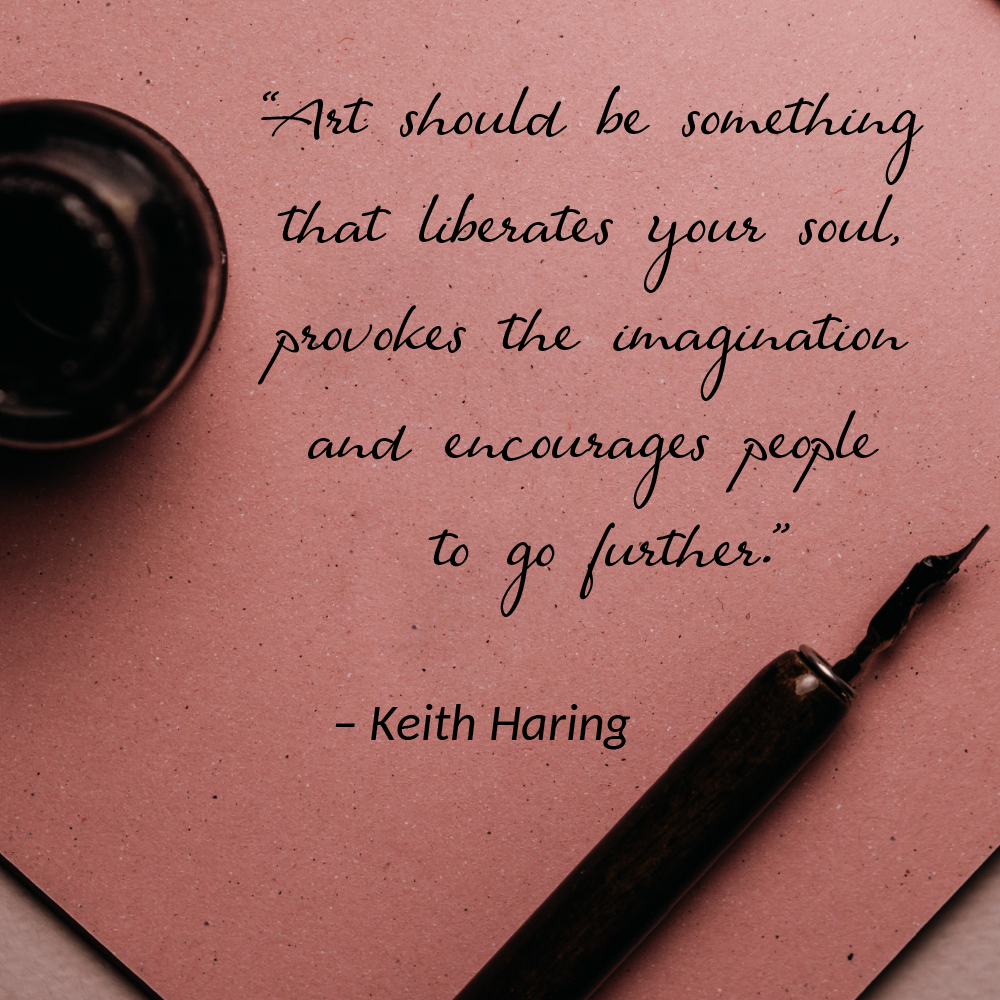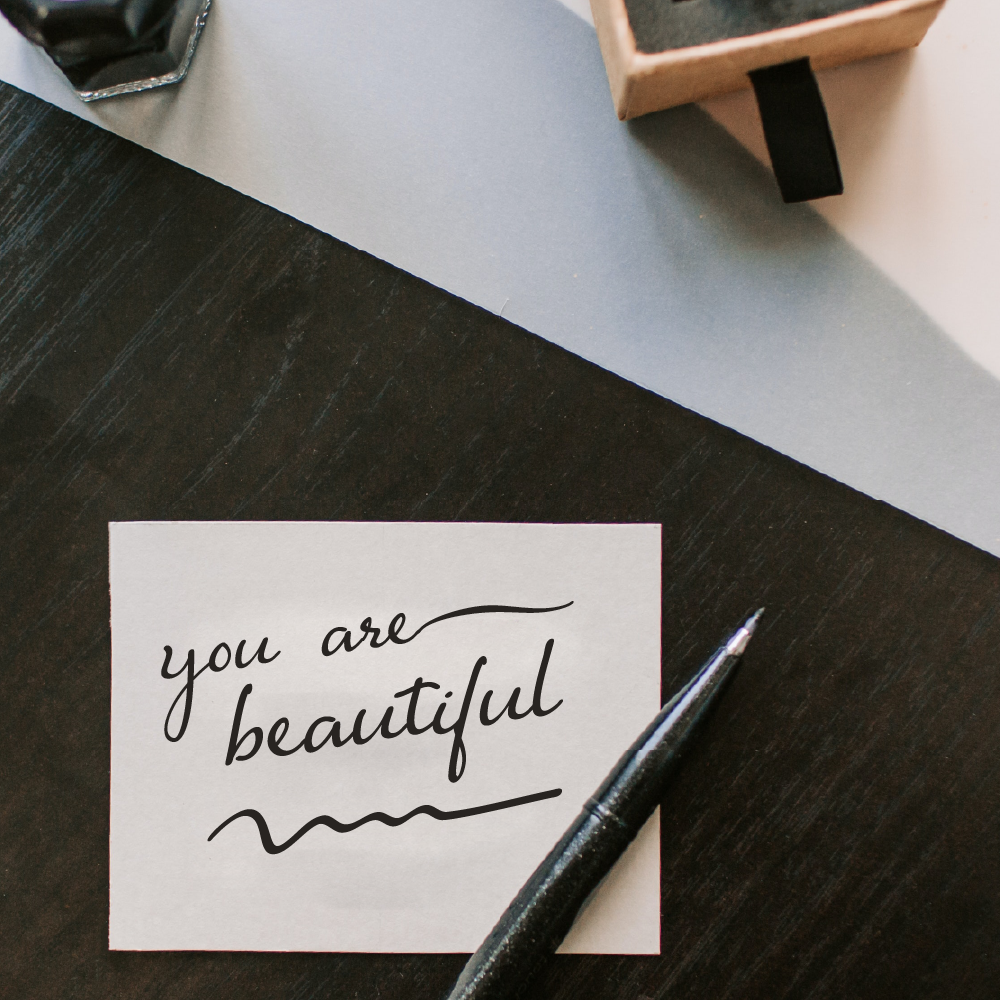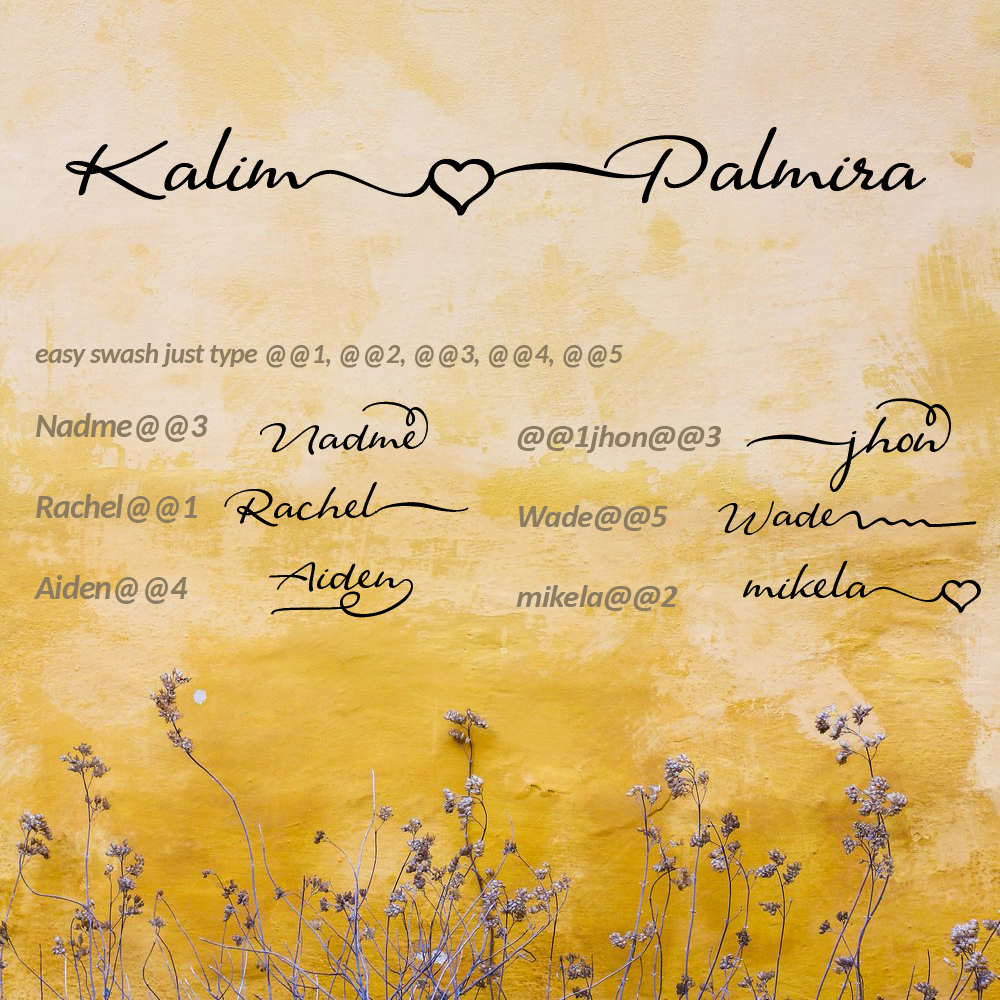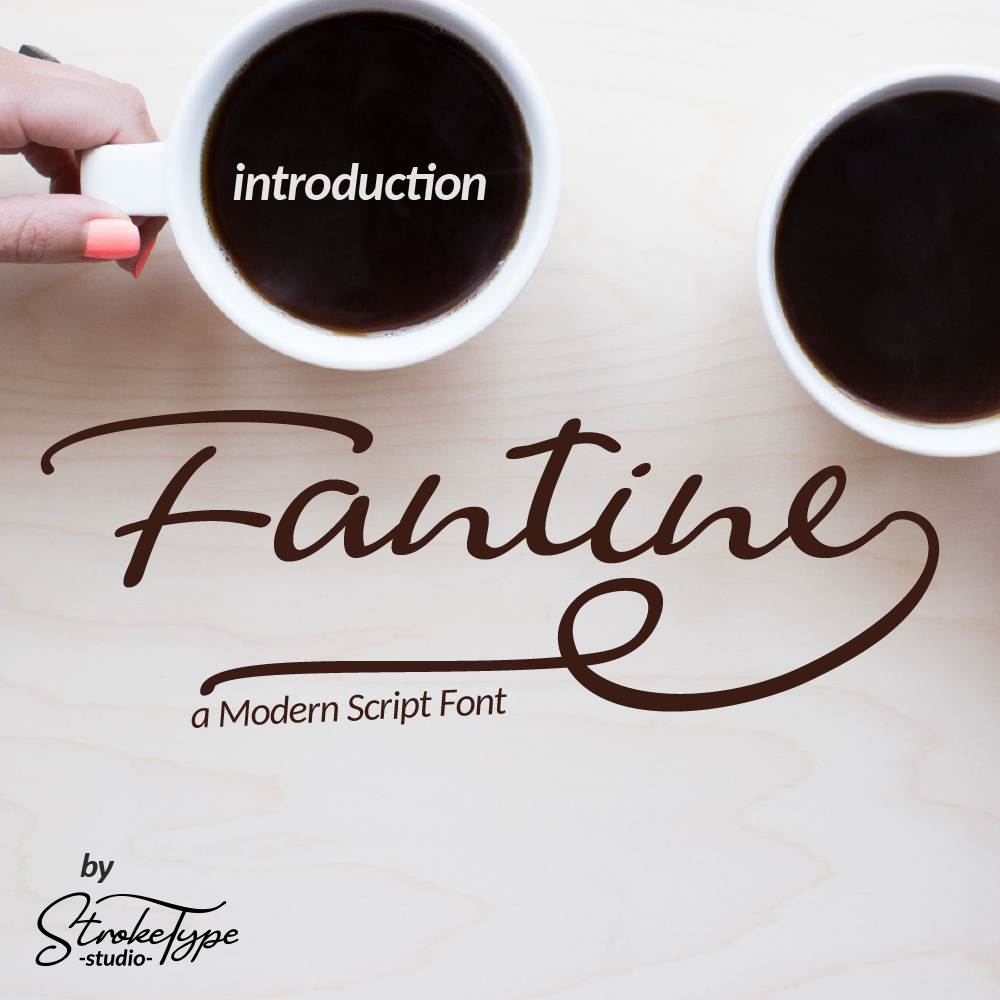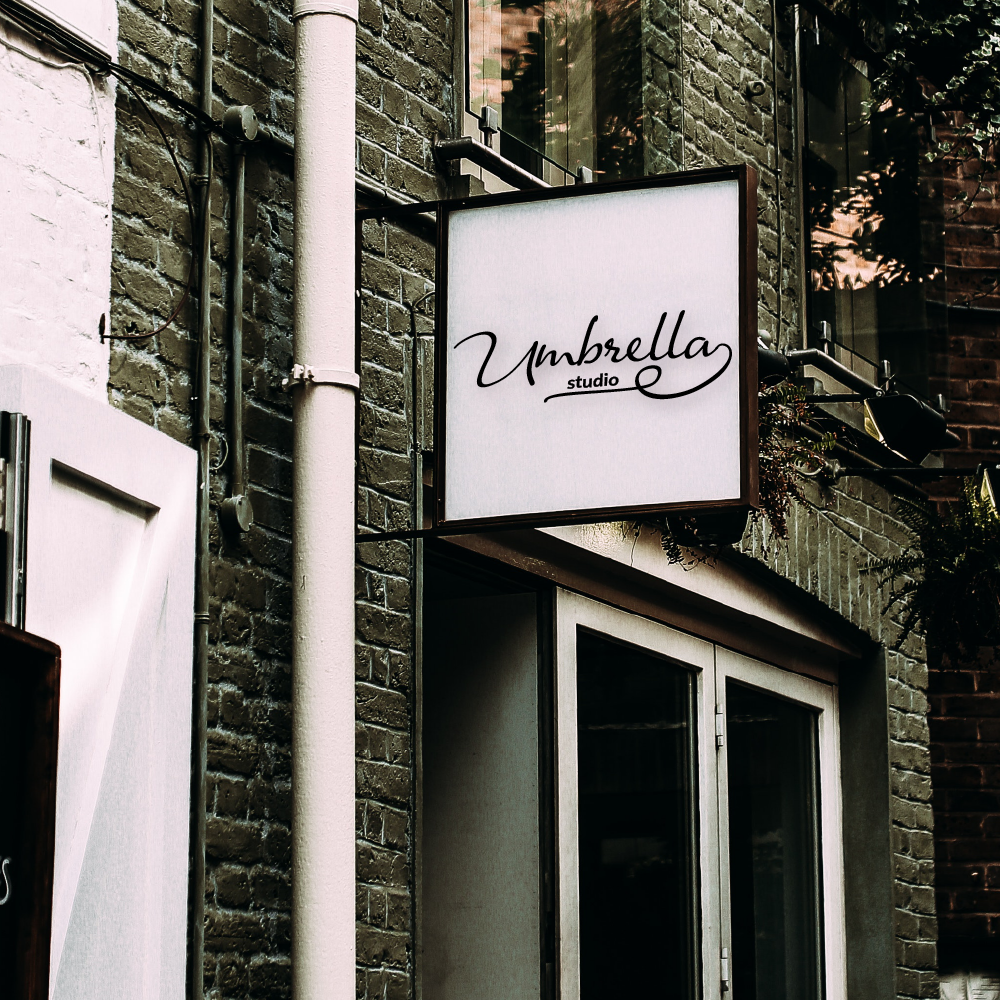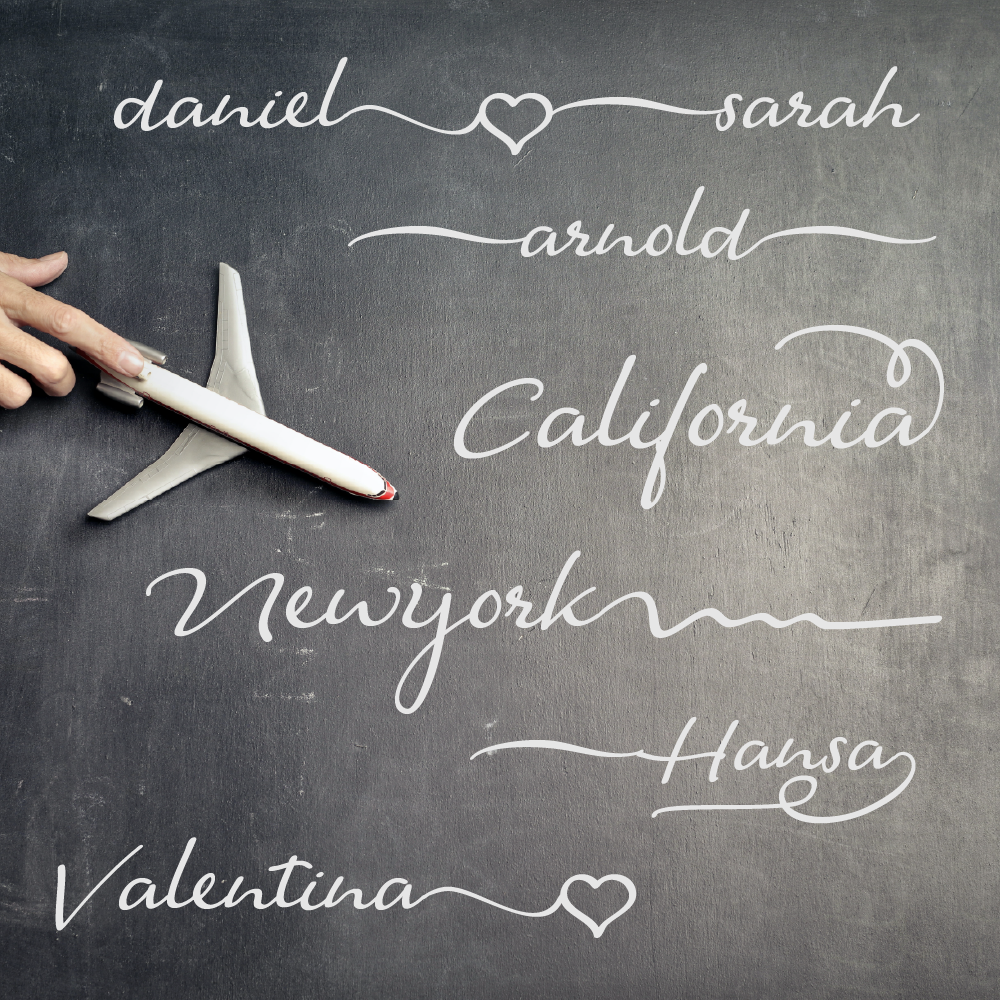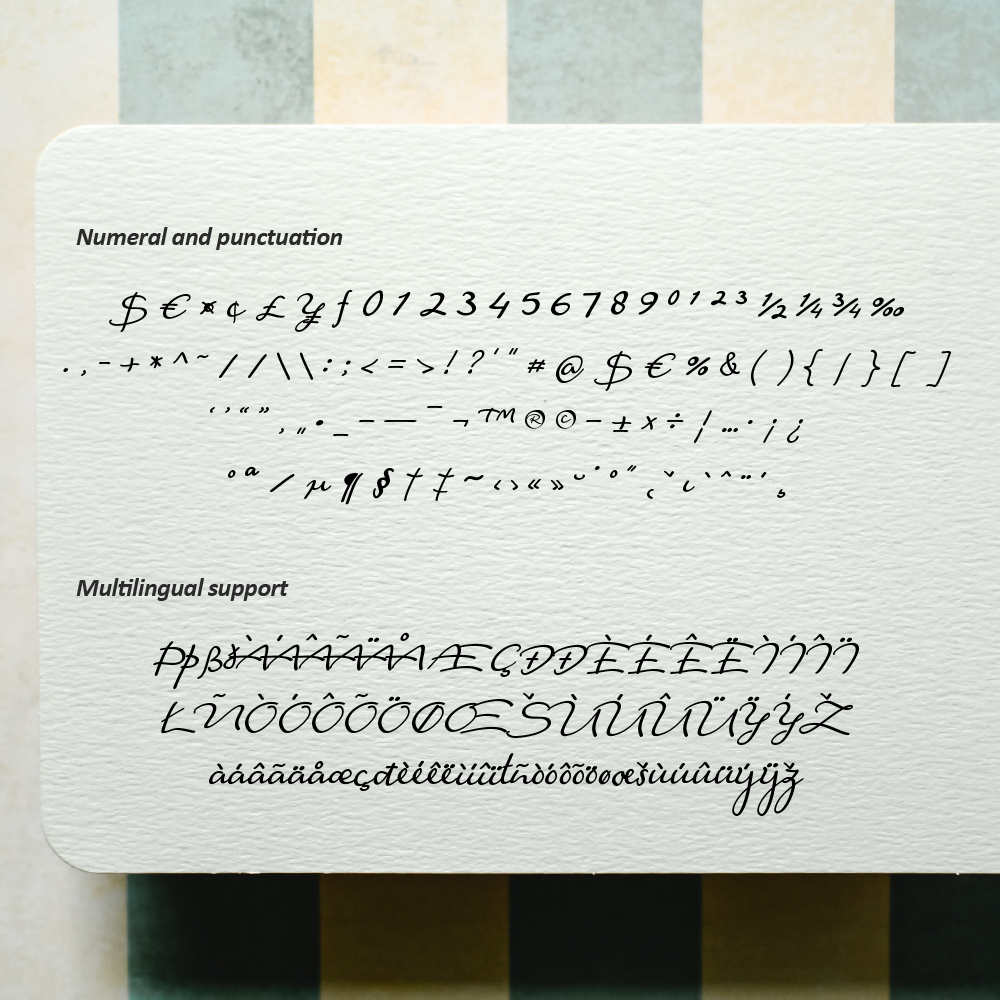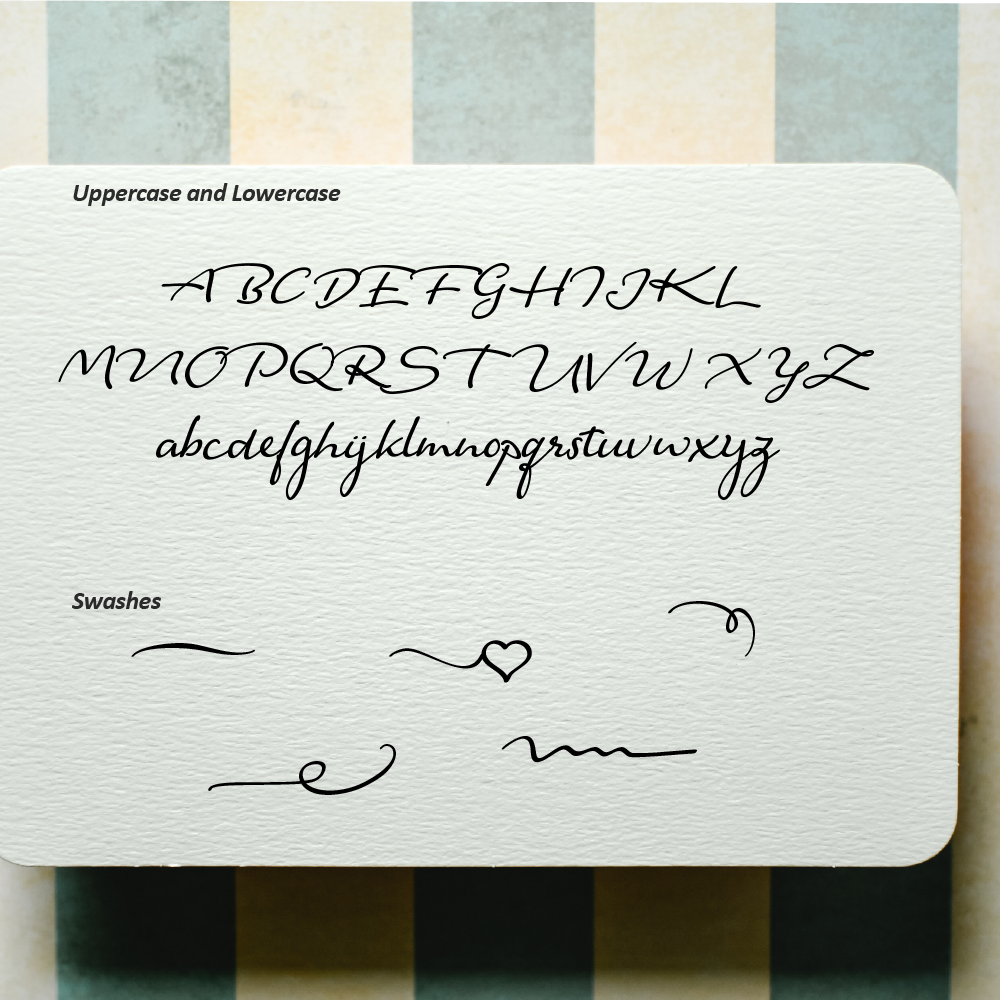
Fantine Modern Script Font
Introducing the lovely Fantine Script Font!
Fantine is a Stylish Script font, with a natural & stylish flow. Fantine Font is perfect for many different project such as logos & branding, invitation, stationery, wedding designs, social media posts, advertisements, product packaging, product designs, label, photography, watermark, special events or anything.
Features
- Uppercase and Lowercase letters
- Numbering and Punctuations
- Multilingual Support
- Easy access swash, just type @@1, @@2, ... etc